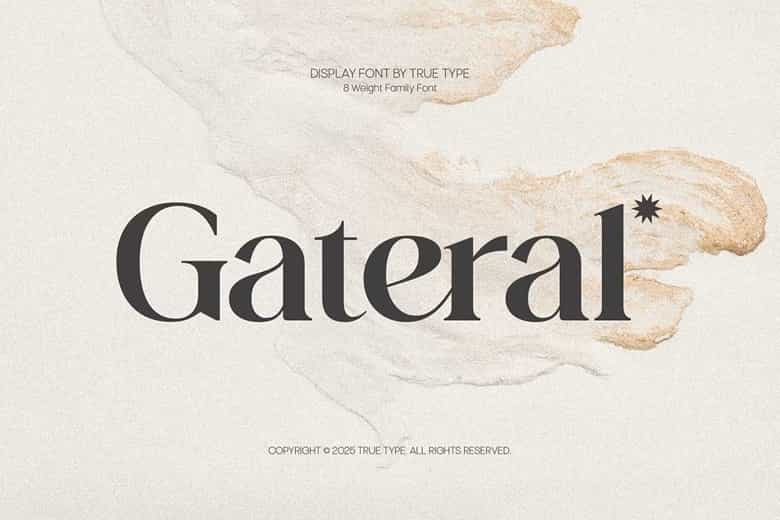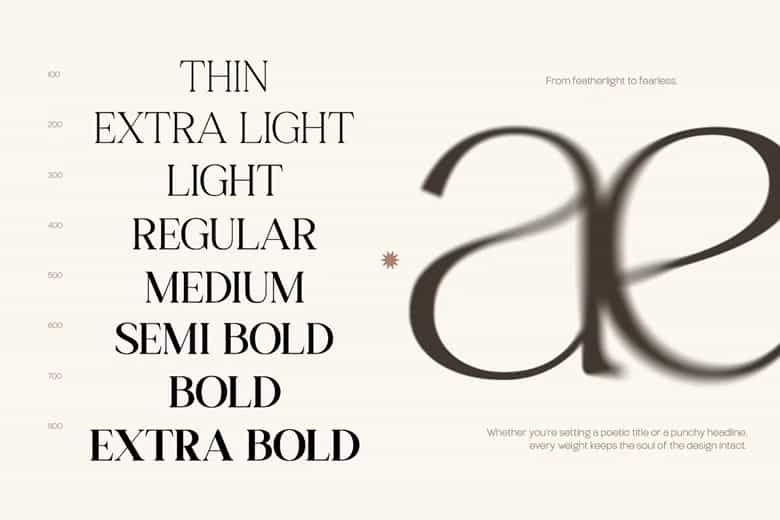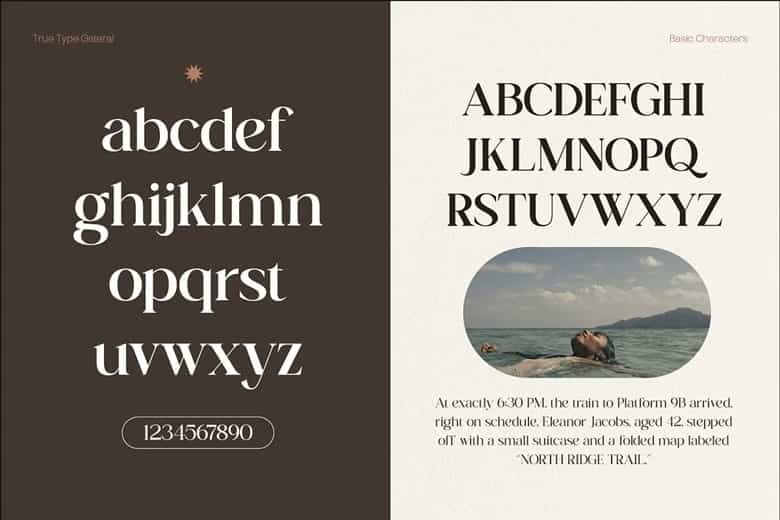
TT Gateral is a modern display serif font that has been created with clarity, balance and subtle elegance in mind. Its minimalist appearance and light contrast mean that it can go far beyond branding and editorial design to packaging and digital content. Designed to be readable in large and small sizes alike, TT Gateral exudes a professional, but does not feel cold or overly formal, tone. It is a confident but not intimidating typeface, and such typefaces can be associated with careful or considerate design.